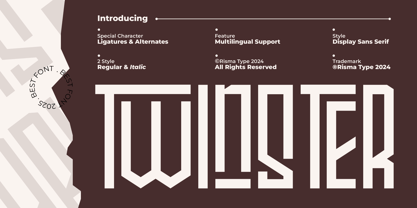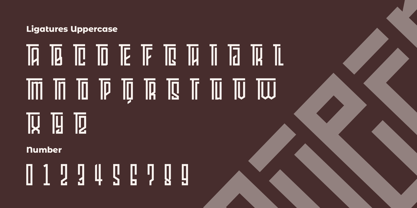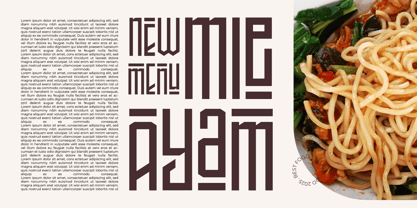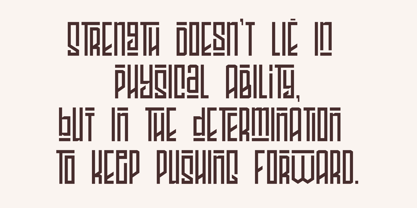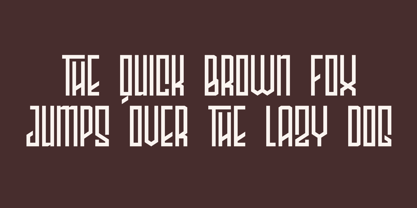
Twinster
by Risma Type
The Twinster Font Family was designed by Risma Mulyasari and published by Risma Type. Twinster contains 2 styles and family package options.
# 🟣 Twinster
Category: Display Sans Serif Typeface (Sleek Precision Meets Contemporary Confidence)
## ⚡ A Confident Typeface for the Bold and the Visionary
Looking for a font that’s sharp, modern, and ready to lead?
Meet Twinster — a crisp, confident display sans serif designed for branding impact and creative expression. From digital banners to futuristic logos, Twinster brings clarity, rhythm, and bold precision to every letterform.
## 🔑 Key Features
* 🧊 Geometric structure with refined curves and tight spacing
* 🎯 Bold letterforms with sharp contrast and clear rhythm
* 🌐 Multilingual support (Latin Extended + Smart Diacritics)
* 💻 Screen-optimized with precision kerning and visual balance
> Twinster is where minimal design meets confident energy — a sans serif built to lead, impress, and define the future.